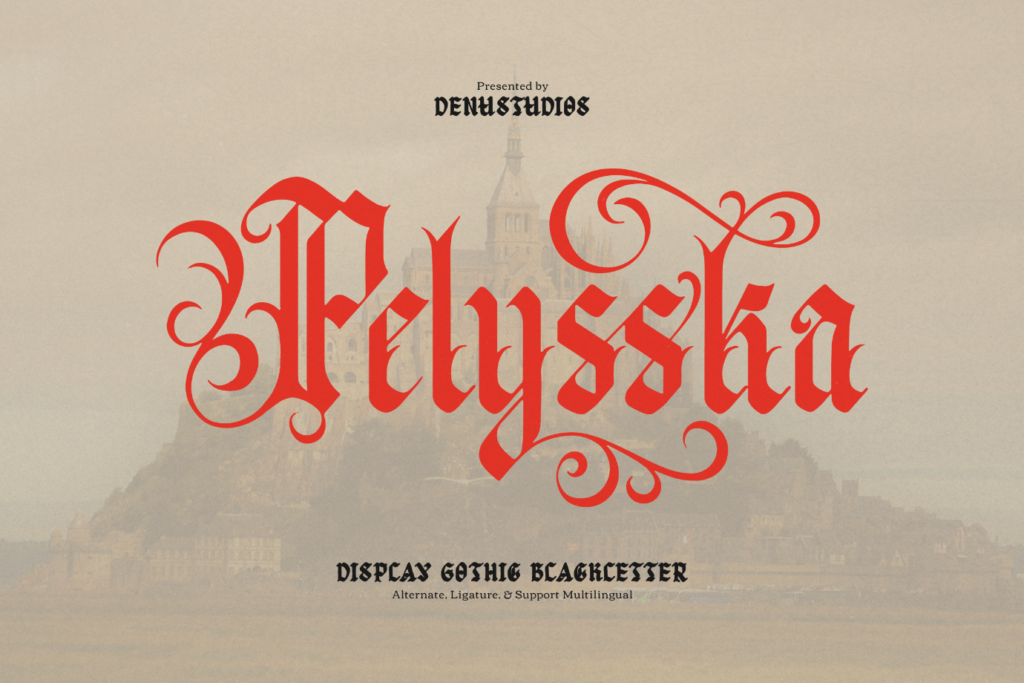
Have you ever looked at a tattoo and felt inspired by the artful lettering? Many of us are drawn to the striking beauty of blackletter fonts, especially when they embody that edgy, urban flair. Whether you’re a designer, crafter, or simply a typography enthusiast, exploring these unique fonts can spark your creativity.
This collection celebrates the vibrant intersection of tattoo culture and graffiti style. Edgy blackletter fonts can elevate your projects, from custom T-shirts to striking wall art. They bring a raw, authentic edge to designs, perfect for those who want their creations to stand out. Finding the right font can transform your work and help express your individuality.
Get ready to dive into a world of dynamic designs! You’ll discover a variety of tattoo-inspired blackletter fonts, each with its own urban twist. Let your imagination run wild as you visualize how these fonts can elevate your next project. Enjoy exploring your creative journey!
Tattoo Font
Tattoo Font is an edgy blackletter typeface inspired by urban graffiti culture. It’s ideal for creative projects like writing in journals, crafting unique greeting cards, or designing bold banners. Imagine using it to create a striking poster for your next event or customizing a mug for a friend that showcases their personality. Its versatility makes it an essential tool for adding a touch of rebellious flair to any design.
Tattoo Studio Font
Tattoo Studio Font is a striking blackletter script designed with meticulous attention to detail. It shines in projects like tattoo designs, band merchandise, and urban street art. Imagine crafting an eye-catching poster for a local punk show or designing a unique tattoo flash sheet that stands out. Its edgy style adds a bold touch to your creative work, making every design feel authentic and full of character.
Dark Graffiti Font
Dark Graffiti is an elegant font that beautifully blends edgy blackletter style with urban flair. It’s ideal for creating vibrant street art, designing bold t-shirts, or crafting eye-catching tattoos. Imagine using this font for a striking logo that captures attention or for unique stickers that showcase your creativity. With its versatile characters and multilingual support, it makes expressing your artistic vision both easy and fun.
Nightmare Gothic Font
Nightmare Gothic is a striking blackletter font that embodies an edgy, urban vibe. It’s ideal for creating standout logos, bold T-shirts, and eye-catching posters that resonate with a tattoo-inspired aesthetic. Imagine designing a custom invitation for a tattoo convention, featuring this font to enhance the gritty atmosphere. Its unique style effortlessly elevates your creative projects, ensuring they leave a lasting impression on anyone who sees them.
Soul Rider Font
Soul Rider is a bold blackletter font that embodies biker culture and urban grit. It shines in creating tattoo designs, edgy apparel graphics, and vintage-inspired branding. Picture using it for a striking motorcycle club logo or a rebellious t-shirt that makes a statement. With its unique style, it effortlessly adds an authentic touch to any creative project, allowing your designs to stand out with confidence.
Rumbleside Font
Rumbleside is a bold blackletter font that exudes a striking blend of classic and modern styles. It’s great for creating edgy tattoo designs, urban street art, or standout logos that demand attention. Imagine using it to craft a vibrant poster for a local music festival, where its sharp edges and elegant curves can really shine. This font effortlessly adds a touch of sophistication to your creative projects, making your designs memorable and impactful.
Iron Horse Font
Iron Horse is a bold blackletter font that captures an edgy, urban vibe. It’s ideal for designing striking tattoos, vibrant posters, or unique greeting cards that stand out. Picture using it to create a personalized poster for your favorite band, capturing the essence of their music. This font adds a distinctive flair to any creative project, making your designs unforgettable and full of character.
Thornt Font
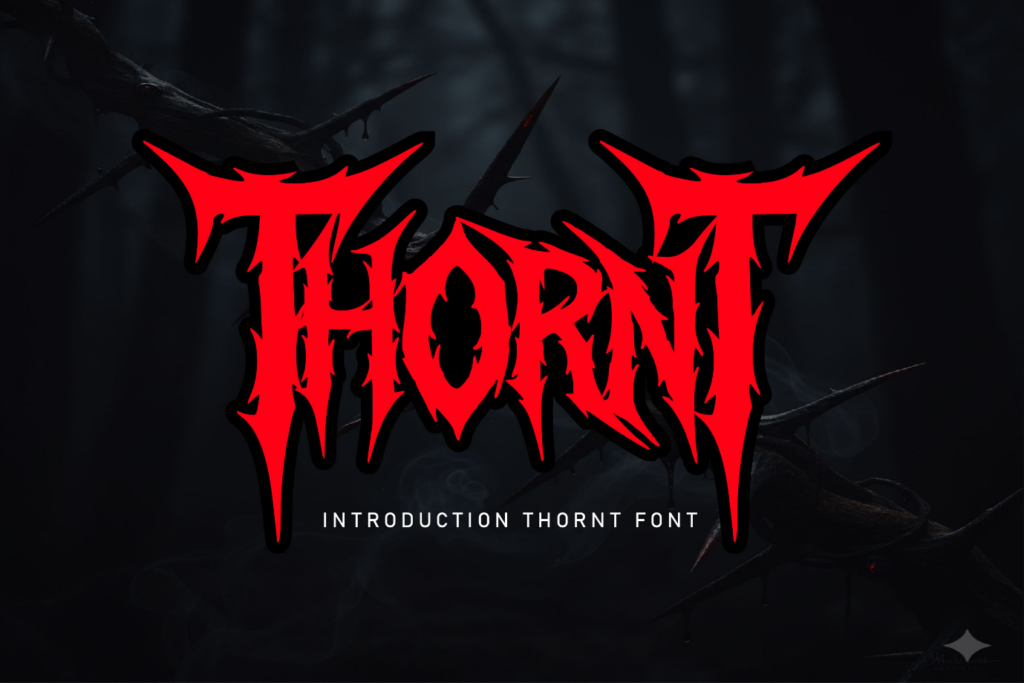
The THORN TYPEFACE brings a bold Gothic flair with its fierce, thorn-shaped letters. It’s ideal for creating striking tattoo designs, edgy album covers, or urban street art that demands attention. Picture using it for a dramatic band logo that captures the essence of rebellion and intensity. This font simplifies the creative process, letting your work radiate dark elegance with ease.
Blackrend Font
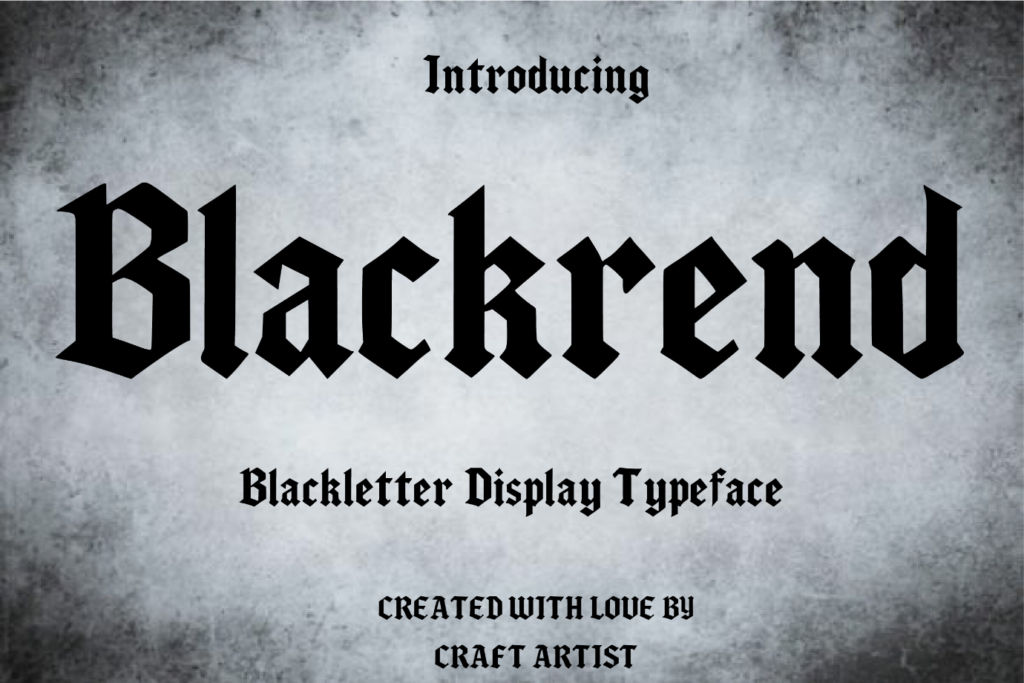
Blackrend is a bold Blackletter typeface that exudes a striking Gothic charm. Use it for designing eye-catching album covers, edgy apparel, or tattoo-style graphics that demand attention. Imagine creating a vintage-inspired poster for a local craft brewery, where the font draws in the crowd with its dramatic flair. Its strong, legible design ensures your message resonates, making every project impactful and memorable.